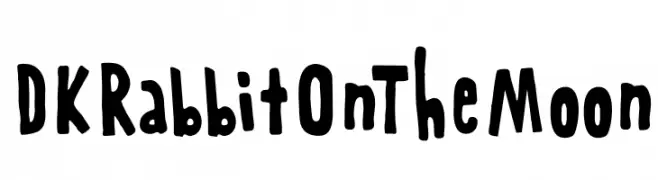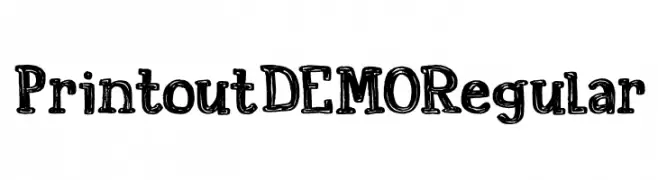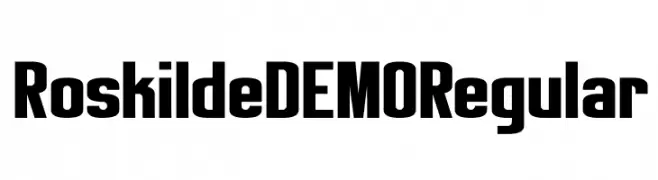
( Hanoded - David Kerkhoff - www.hanodedfonts.com )
A playful, whimsical font with bold, irregular strokes and a lively appearance.
( Hanoded - David Kerkhoff - www.hanodedfonts.com )
A bold, textured font with a vintage, hand-drawn aesthetic.
( Hanoded - David Kerkhoff - www.hanodedfonts.com )
A dynamic, cursive font with fluid, interconnected strokes and an expressive style.
( Hanoded - David Kerkhoff - www.hanodedfonts.com )
A decorative font with whimsical swirls and butterfly embellishments.
( Hanoded - David Kerkhoff - www.hanodedfonts.com )
A playful, hand-drawn font with a bold and whimsical style.
( Hanoded - David Kerkhoff - www.hanodedfonts.com )
A playful, hand-drawn font with bold, irregular strokes and a whimsical style.
( Hanoded - David Kerkhoff - www.hanodedfonts.com )
A bold, hand-drawn font with a rugged, energetic style.
( Hanoded - David Kerkhoff - www.hanodedfonts.com )
A distressed, graffiti-inspired font with a raw, edgy aesthetic.
( Hanoded - David Kerkhoff - www.hanodedfonts.com )
A distressed, grunge-style font with a bold, stencil-like appearance.
( Hanoded - David Kerkhoff - www.hanodedfonts.com )
A bold, geometric sans-serif font with a modern and assertive style.